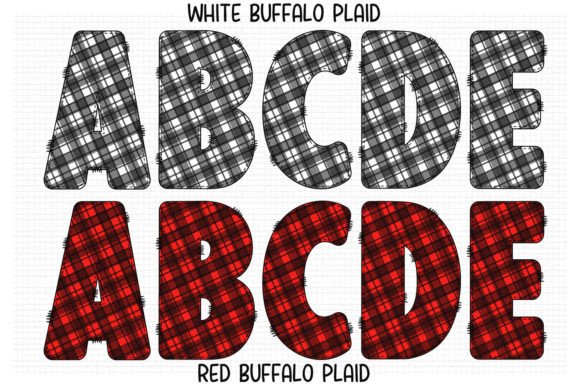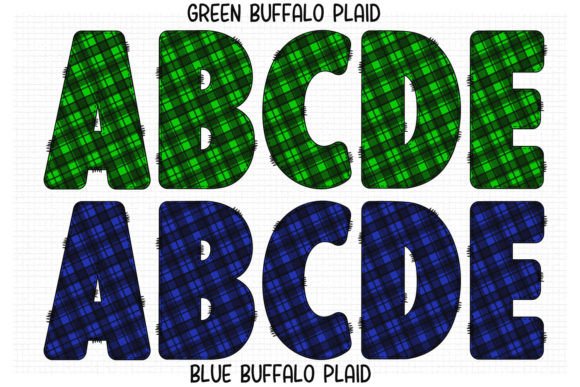
The Perfect Plaid Companion for Your Designs
Have you ever stared at a blank canvas, trying to decide on the perfect font to bring your creative vision to life? We’ve all been there. But what if I told you that there’s a font that’s as cozy as a cup of hot cocoa on a chilly fall evening? Enter the Buffalo Plaid Font, a cool and friendly color font that’s perfect for adding a touch of warmth to your designs.
This versatile font is ideal for Christmas projects, fall-themed creations, and so much more. Its unique plaid design adds a playful twist to any project, making it a valuable asset to any designer’s library. With the black version compatible with Cricut Design Space and other cutting machines, you can easily incorporate it into your crafty projects. Whether you’re a seasoned designer or a DIY enthusiast, the Buffalo Plaid Font is sure to become your new favorite companion.
Buffalo Plaid Font Key Features
- Unique Characteristics: Distinctive buffalo plaid pattern, with red and black stripes on a white background, adds a rustic and nostalgic touch to designs
- Font Style: Display font, ideal for headings, titles, and emphasis
- Font Weight: Available in light, regular, and bold weights, offering flexibility for various design applications
Buffalo Plaid Font Review
Overall, I’m impressed with the Buffalo Plaid Font’s unique aesthetic. It’s a font that truly stands out from the crowd ✨. The bold, grid-like pattern of red and black checks adds a touch of nostalgia and whimsy to any design project. The font is perfect for creating eye-catching graphics, logos, or even branding materials that need a rustic, country feel.
One of the things I like most about this font is its versatility ✨. It can be used in a variety of contexts, from outdoor apparel to home decor, and still look great. The font is also highly customizable, allowing designers to adjust the size, color, and pattern to fit their specific needs.
- Unique and eye-catching aesthetic ✨
- Perfect for creating a rustic, country feel
- Works well in a variety of contexts
- May be too bold or overpowering for some designs ⚠️
- Not suitable for fine typography or delicate designs
- May not be the best choice for formal or professional projects
Overall, I think the Buffalo Plaid Font is a great addition to any designer’s toolkit. While it may have some limitations, its unique aesthetic and versatility make it a standout choice for designers looking to add some personality to their projects.
The Buffalo Plaid font is commonly used in:
- Rustic or country-themed designs.
- Outdoor or nature-inspired graphics.
- Seasonal or holiday-themed designs.